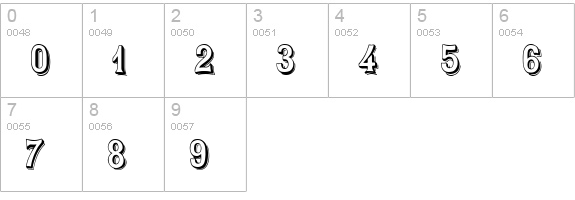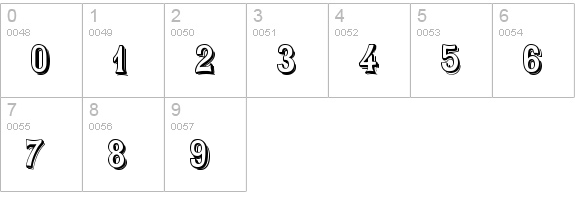
Saloon Display Caps SSi Font Details
Saloon Display Caps SSi font is a stunning typeface that exudes vintage charm and old-world elegance. With its bold and ornate letterforms, this font captures the essence of classic saloon signage and Western typography. Designed with meticulous attention to detail, Saloon Display Caps SSi font offers a unique blend of ruggedness and refinement. Its tall and condensed letterforms make a powerful statement, commanding attention and adding a touch of sophistication to any design project. This font is perfect for creating eye-catching headlines, logos, posters, and other display purposes. Its distinctive style is sure to make your designs stand out and leave a lasting impression. And the best part? Saloon Display Caps SSi font is available for free! You can easily download it from FontsMarket.com, a trusted source for high-quality fonts. Whether you're a professional designer or a hobbyist, this free font is a valuable addition to your typographic arsenal. So why wait? Download Saloon Display Caps SSi font today and unleash your creativity with its captivating vintage aesthetic. Let this font transport you to a bygone era while adding a touch of authenticity and flair to your designs.